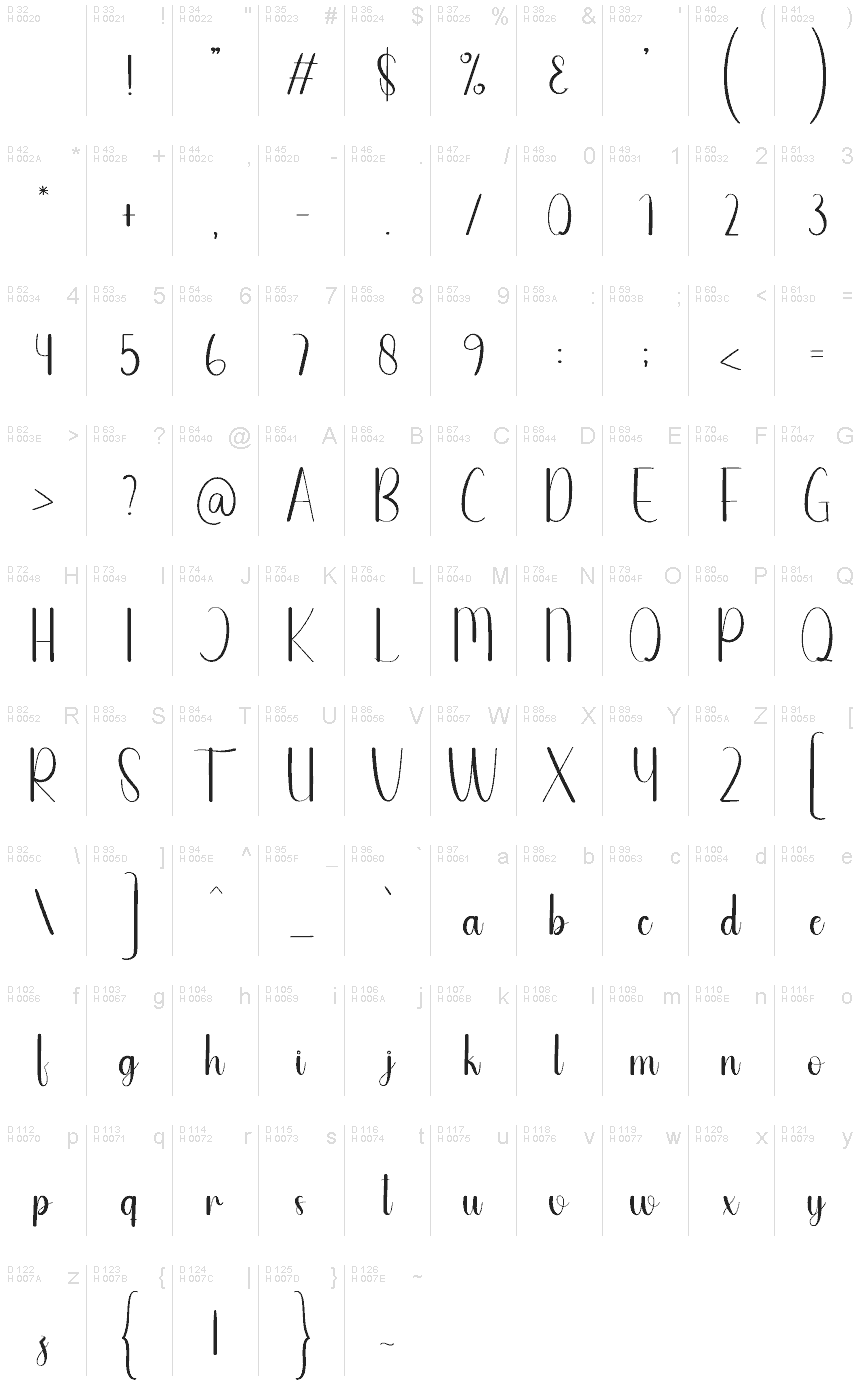
One Homework
One Homework font by Andi Moz is a handwritten typeface that showcases an elegant and expressive style. With flowing lines and freeform serif elements, this font offers an imaginative and decorative flair. Its unique touch is perfect for those looking to add a personal feel to their projects.
This free handwritten font is ideal for use in invitations, posters, book covers, social media graphics, packaging design, branding projects, greeting cards, typography art pieces, blog headers, and product labels.
This is a sweet and friendly handwritten display font. Cute and fun, this font is ideal for writing wedding invitations, cards, or any other design that requires a playful touch!
This free handwritten font is ideal for use in invitations, posters, book covers, social media graphics, packaging design, branding projects, greeting cards, typography art pieces, blog headers, and product labels.
This is a sweet and friendly handwritten display font. Cute and fun, this font is ideal for writing wedding invitations, cards, or any other design that requires a playful touch!